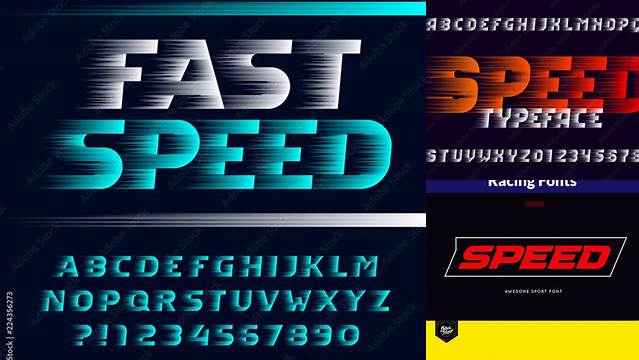
1. What are Speed Fonts?
So, what exactly are speed fonts? Well, they're typefaces designed to evoke a sense of movement, velocity, and energy. Think of sleek, futuristic designs, bold strokes, and often italicized characters that lean forward, suggesting motion. These fonts are perfect for projects where you want to communicate a feeling of fast action, whether it's in the world of sports, technology, or even just conveying a sense of urgency.
The characteristics of speed fonts usually include a dynamic and forward-leaning appearance. This can be achieved through various design elements such as sharp angles, elongated lines, and a generally streamlined aesthetic. Many speed fonts also incorporate italicized letterforms, which naturally suggest movement. The overall goal is to create a visual representation of speed and agility, making these fonts ideal for titles, headings, and designs that need to grab attention and convey a sense of action.
When you're thinking about using a speed font, consider the context of your project. Is it for a racing game, a sports-related advertisement, or a futuristic technology product? The right speed font can significantly enhance the visual appeal and the overall message you're trying to convey. Using these fonts correctly can make your designs look more professional and impactful, helping you stand out from the crowd. Just remember to balance the bold nature of these fonts with readability and overall design harmony. Overusing them can lead to visual clutter, so choose wisely and use sparingly for the best effect!
2. The Psychology of Speed Fonts
Have you ever wondered why certain fonts just feel fast? It's not just about the aesthetics; there's a whole psychology behind it! The human brain associates specific shapes and styles with different emotions and concepts. Speed fonts tap into this by using design elements that mimic the visual cues of motion. Think of the sleek lines of a sports car or the forward-leaning posture of a runner – these elements are often mirrored in the font's design.
The psychology behind speed fonts lies in their ability to trigger associations with movement and energy. When we see sharp angles, elongated forms, and dynamic lines, our brains automatically interpret them as indicators of speed. This is because these features mimic the visual experience of objects in motion. For instance, an italicized font suggests movement because it appears to be leaning forward, just like a runner about to sprint. The use of bold strokes and strong contrasts also contributes to the sense of urgency and impact, making these fonts visually compelling and attention-grabbing.
The impact of font choice on perception is significant. Using a speed font in your design can instantly convey a sense of excitement and dynamism. However, it's crucial to consider the context and target audience. For a racing-themed project or a high-energy advertisement, a speed font can be highly effective. On the other hand, using such a font in a more formal or subdued setting might feel out of place. By understanding the psychological effects of different font styles, you can make informed decisions that enhance your message and create the desired emotional response in your audience. Choose wisely, and your fonts will do more than just display text—they'll communicate your message with power and precision!
Alright, let's get to the good stuff! Where can you actually find these awesome speed fonts without breaking the bank? The internet is a treasure trove of free resources, but it's essential to know where to look. We're going to cover some of the best websites and resources for snagging free speed fonts that will make your projects pop.
One of the best places to start your search for free speed fonts is Google Fonts. Google Fonts offers a wide variety of typefaces that are not only free but also open-source, meaning you can use them in both personal and commercial projects without any licensing restrictions. The platform is user-friendly, allowing you to easily browse, filter, and preview fonts before downloading them. When searching for speed fonts on Google Fonts, you can use keywords like “italic,” “bold,” or “futuristic” to narrow down your options. Another great feature is the ability to test the font with your own text, ensuring it fits your design needs perfectly.
Another excellent resource is DaFont, a website that hosts thousands of fonts, many of which are available for free. DaFont categorizes fonts into various themes and styles, making it easy to find speed fonts that match your project's aesthetic. You’ll find fonts ranging from racing-inspired designs to futuristic typefaces. Before downloading, always check the license information provided by the font creator, as some fonts may be free for personal use only. Other reputable websites for free fonts include FontSpace, 1001 Free Fonts, and Creative Market, which often offers freebies as part of their promotions. These platforms provide a diverse selection of fonts, allowing you to experiment and find the ideal typeface for your speed-related designs. Just remember to double-check those licenses to ensure you're using the fonts legally and ethically!
4. Top Websites for Free Speed Fonts
Let's dive deeper into some specific websites that are goldmines for speed fonts. These sites are known for their extensive libraries, user-friendly interfaces, and clear licensing information. We'll break down what makes each site unique and how you can make the most of them in your quest for the perfect typeface.
One of the top websites for free speed fonts is undoubtedly Google Fonts. What makes Google Fonts stand out is its impressive collection of open-source fonts that are free for both personal and commercial use. The platform is incredibly user-friendly, allowing you to easily search, filter, and preview fonts directly in your browser. You can filter fonts by categories like serif, sans-serif, and monospace, as well as by properties such as thickness and slant. To find speed fonts, use keywords like